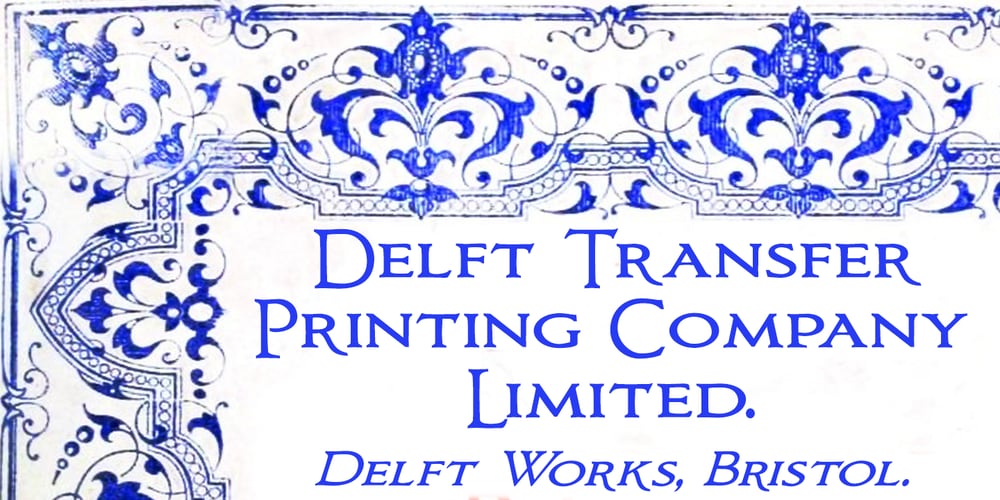
Bronzino Font Family was designed by Paul James Lloyd and published by Greater Albion Typefounders. Bronzino contains 3 styles and family package options. Bronzino’s roots lie in the Arts and Crafts movement, and in the traditions of letterpress printed fine quality books. It’s ideal for legible headings which have just that hint of charm and difference outside of the normal and mundane. It’s formal enough to go anywhere yet it has a spirit of fun, it brings a world of bygone care and quality to the modern age.